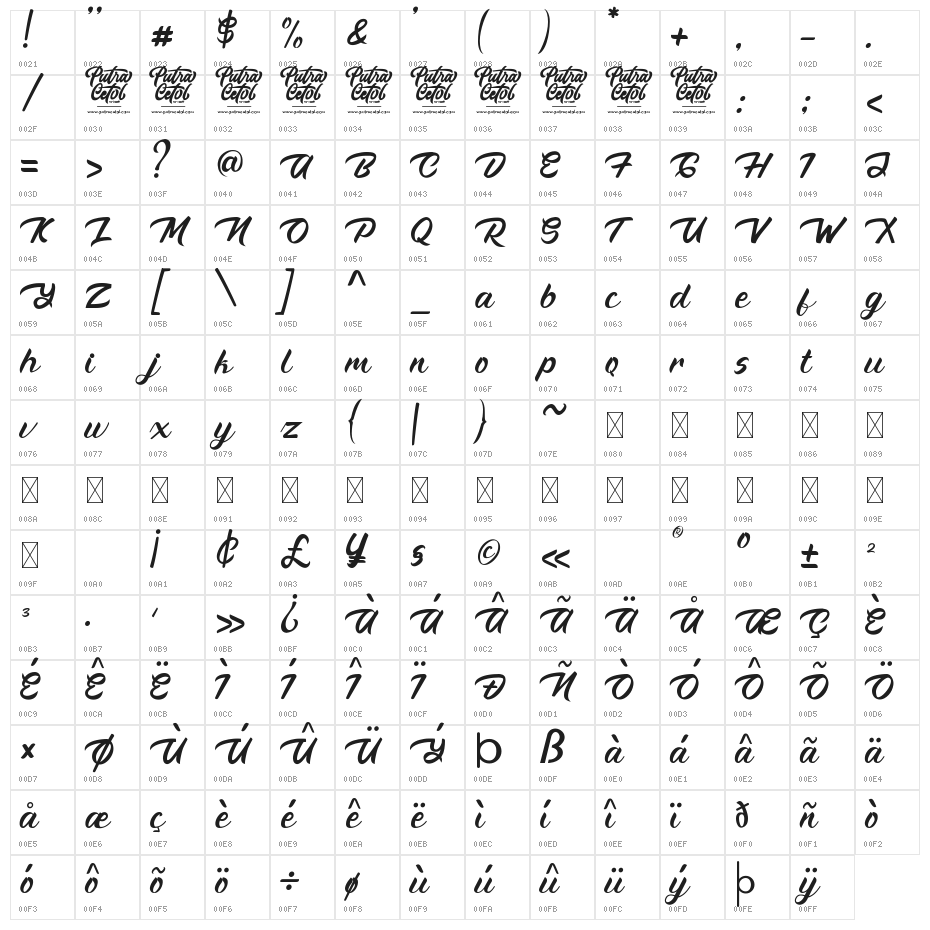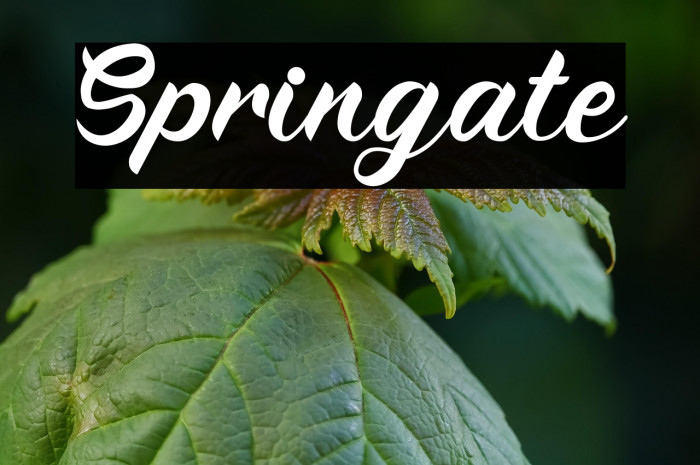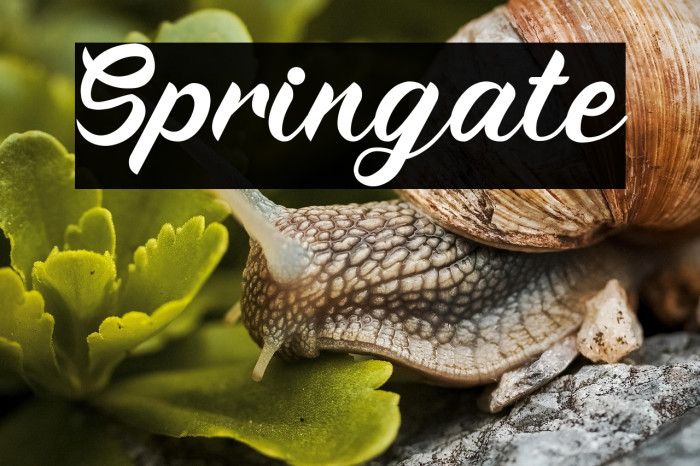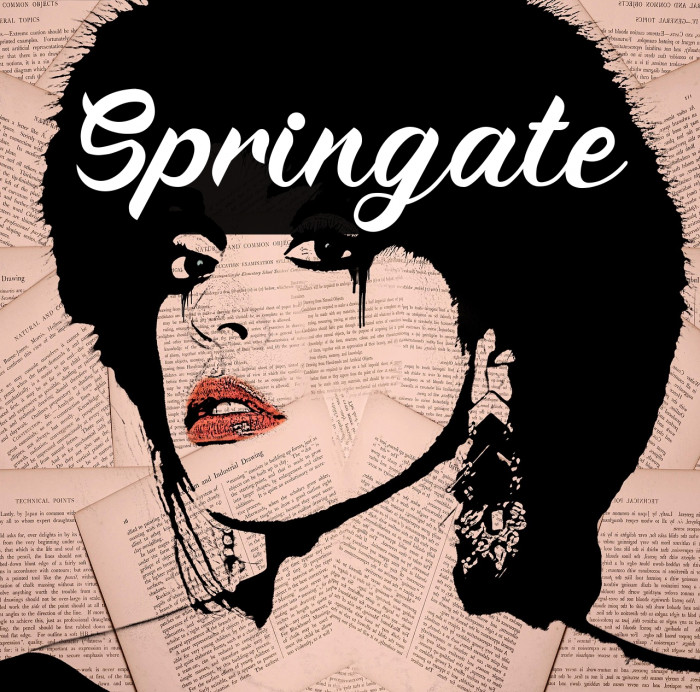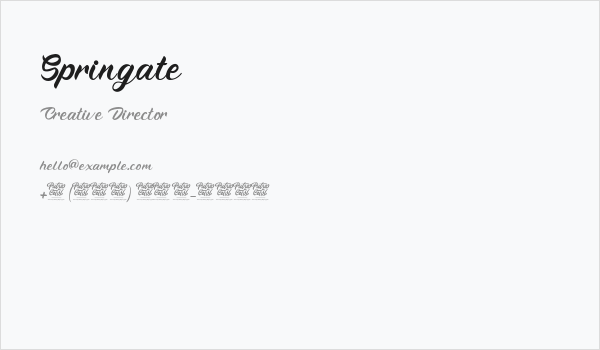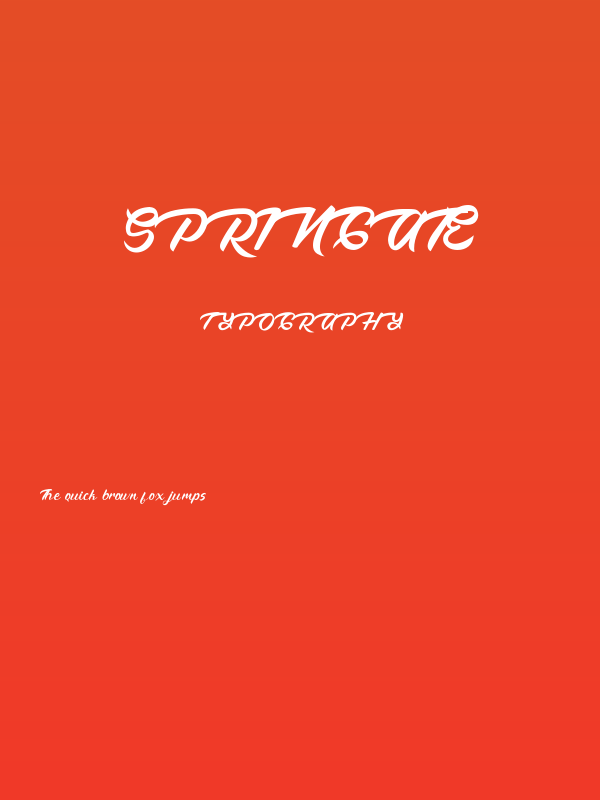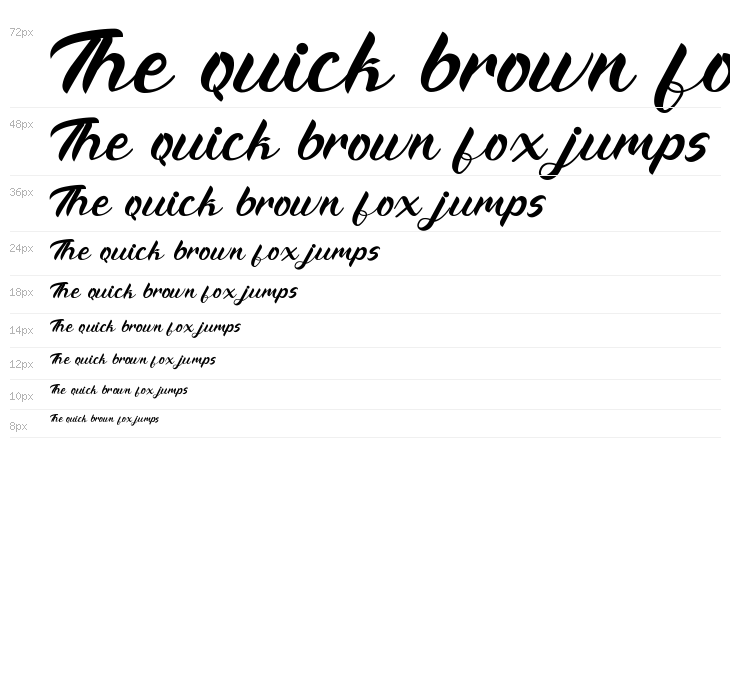
Springate Font
Springate Description
This font showcases a dynamic and flowing script style, characterized by its elegant and cursive letterforms. The uppercase letters exhibit a strong, sweeping motion, while the lowercase letters maintain a consistent fluidity, enhancing readability. The font's bold strokes and smooth curves create a sense of movement and grace, making it ideal for creative and expressive designs. Its distinctive style is further emphasized by the unique treatment of special characters, which blend seamlessly with the overall aesthetic. The font's versatility allows it to be used in various contexts, from formal invitations to artistic branding projects.
| Use Case | Logos, Headlines, Invitations |
| Proposed Projects | Ideal for wedding invitations, branding, logos, and artistic projects requiring a touch of elegance and flair. |